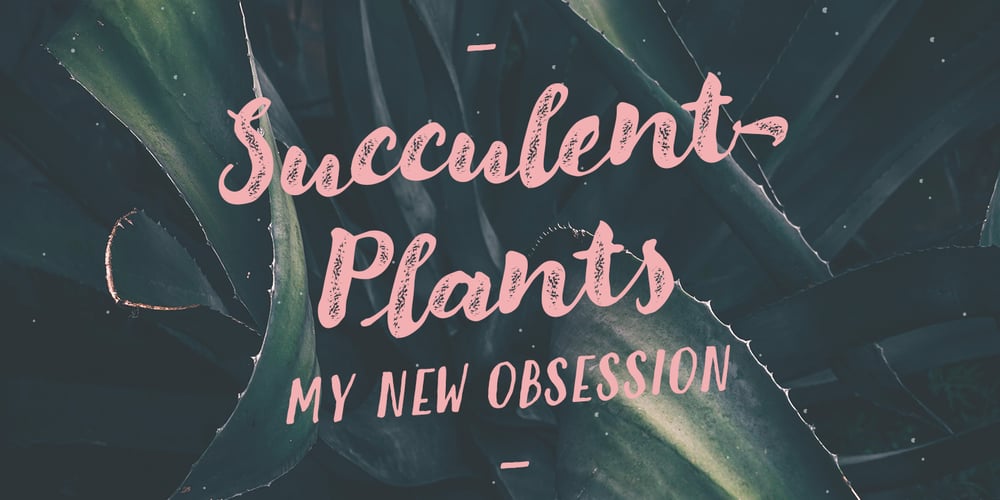
Modern Love Slanted
Modern Love Slanted font
Modern Love Slanted Font Family was designed by Giuseppe Salerno, Paco González and published by Resistenza. Modern Love Slanted contains 4 styles and family package options. Introducing Modern Love Slanted, the latest addition to the casual slanted brush-handwritten font family. With its effortless hand-painted feeling and a high density of contrast reminiscent of the popular Modern Love Regular, this font brings a fresh dynamic to your projects.With four distinct fonts in the family – regular, rough, grunge, and All Caps – Modern Love Slanted offers versatility and character. The rough version exudes an imperfect charm, mimicking the organic shapes of ink absorbed on paper. Meanwhile, the grunge font evokes a vintage, aged effect, adding depth and texture to your designs. The All Caps font introduces subtle contrast, enhancing readability and visual appeal.But that’s not all – Modern Love Slanted also includes a collection of ornaments, swashes, and alternates accessible through Opentype features. These elements allow for creative customization, giving your projects a personalised touch.Whether you’re designing invitations, posters, logos, or social media graphics, Modern Love Slanted is the perfect choice to infuse a DIY aesthetic and add a human touch to your digital creations. This versatile font family is sure to elevate your work with its unique blend of contemporary style and handcrafted appeal.More About Opentype Features: https://bit.ly/opentype-rsz